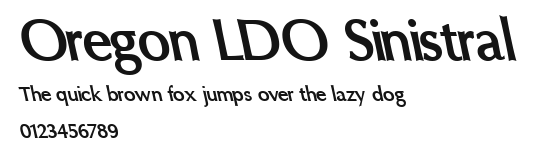
• Font Name: Oregon LDO Sinistral
• Full Font Name: Oregon LDO Sinistral Bold
• Designer: Luke Owens
• Manufacturer: LDO Fonts
About Oregon LDO Sinistral.ttf
Oregon LDO Sinistral.ttf is a modern, elegant sans-serif font designed for ultimate readability and visual harmony. Perfect for branding, headlines, web design, and print materials.